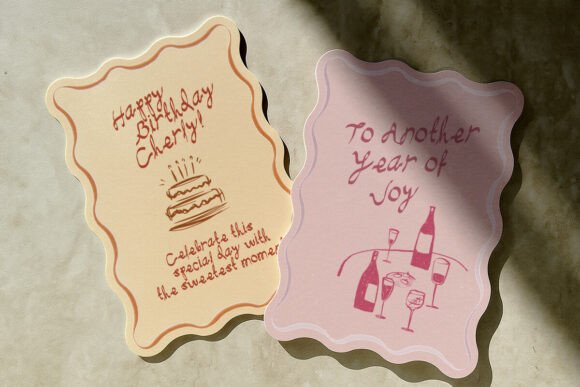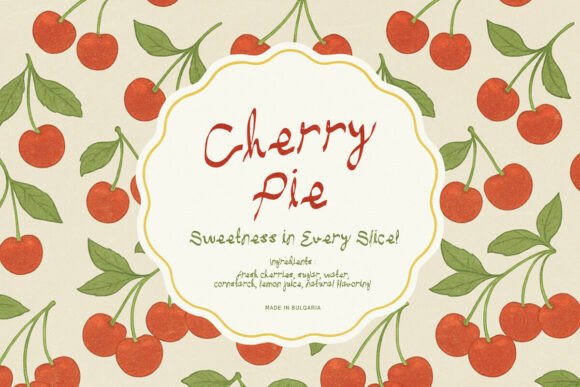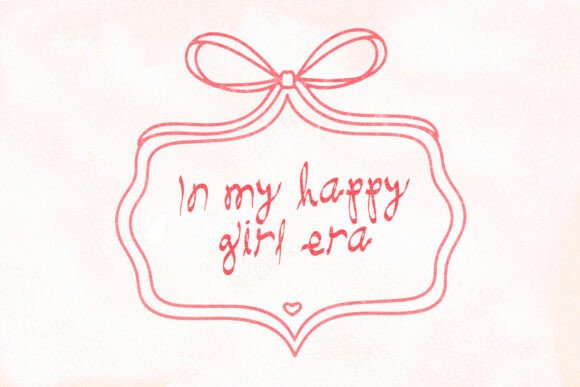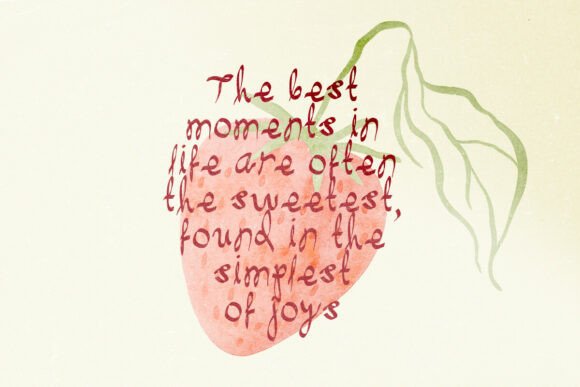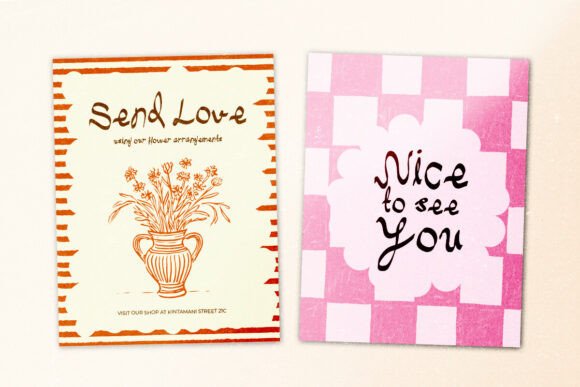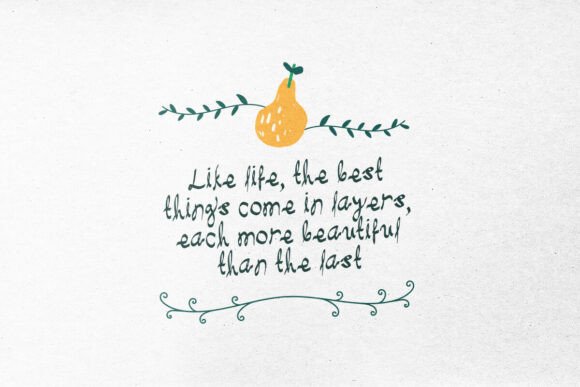
Introduction to French Things Font
You’re browsing through design inspiration boards, and suddenly, a beautiful invitation catches your eye. The elegant script, the delicate flourishes, and the overall whimsical feel transport you to a charming French bistro. That’s the magic of the French Things Font – a typography treasure that brings a touch of je ne sais quoi to any design project. As a designer, you know how challenging it is to find the perfect font for your creative project. That’s why we’re excited to introduce you to this stunning font that’s sure to elevate your designs and leave a lasting impression.
With its playful yet elegant style, French Things Font is the perfect addition to your design arsenal. Whether you’re working on a branding project, creating invitations, or designing logos, this font is sure to bring a warm and stylish touch to your work. And the best part? It’s available for free download, making it an accessible design resource for designers of all levels.
As a high-quality design resource, French Things Font offers a transparent background, allowing you to easily customize it to fit your project’s needs. Its versatility and sophistication make it an ideal choice for designers who want to create visually appealing and professional designs. So, let’s dive into the world of French Things Font and discover why it’s a valuable addition to any designer’s toolkit.
Key Features of French Things Font
- High-quality design: This font features intricate details and elegant designs, perfect for adding a touch of sophistication to your creative project.
- Transparent background: The French Things Font has a transparent background, allowing for seamless integration into various design elements.
- Unique characteristics: The font features a unique blend of classic and modern elements, making it ideal for projects that require a touch of French flair.
- Large character set: Includes a comprehensive character set, including uppercase and lowercase letters, numbers, and special characters.
Honest Review: French Things Font
I recently stumbled upon the French Things Font, and I must say, it’s a lovely addition to my design resource library. This charming font is perfect for any creative project that requires a touch of elegance and sophistication.
- ✨ The high quality of the font ensures that it looks great on any background, including transparent backgrounds.
- ✨ The font is highly versatile and can be used for a variety of design projects, from logo designs to social media graphics.
- ⚠️ The font is limited in terms of character set, which may not be suitable for projects that require a wide range of characters.
- ⚠️ The font may not be as customizable as some other fonts, which could be a limitation for designers who need a high degree of control.
Overall, I’m impressed with the French Things Font. It’s a beautiful and elegant font that’s perfect for designers who want to add a touch of French flair to their creative projects.
Getting the Most Out of French Things Font
To get the most out of the French Things Font, try using it in conjunction with other design resources, such as graphics and textures. You can also experiment with different font sizes and styles to create unique and eye-catching designs.